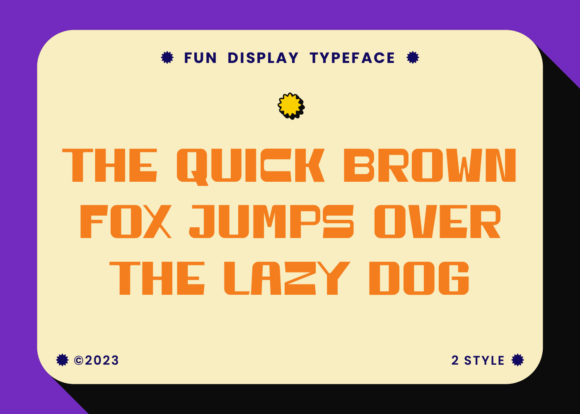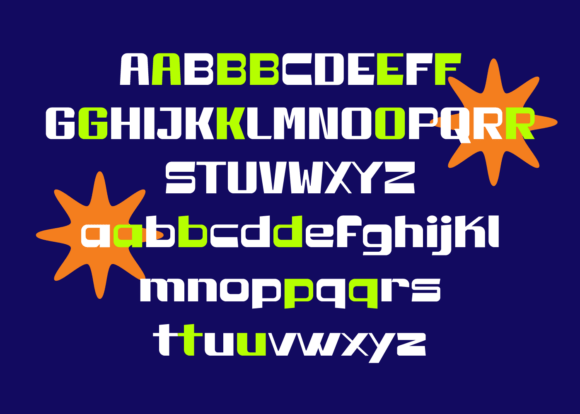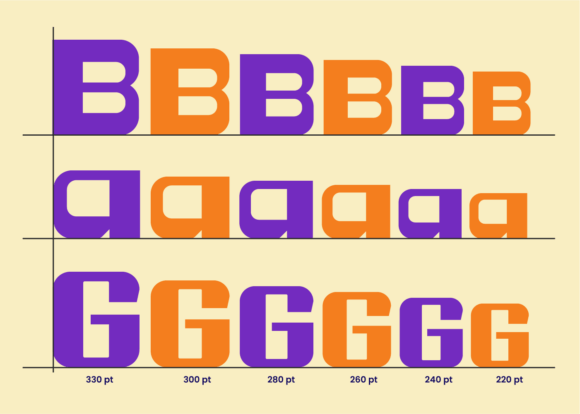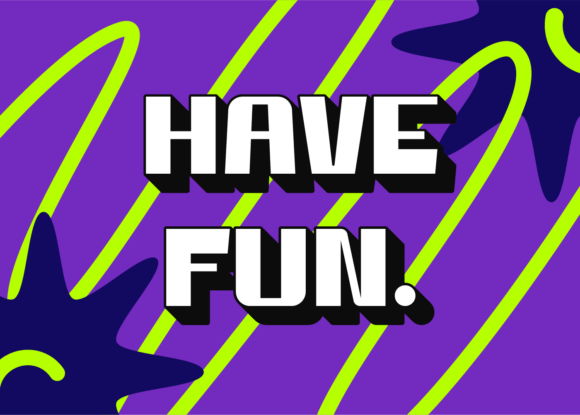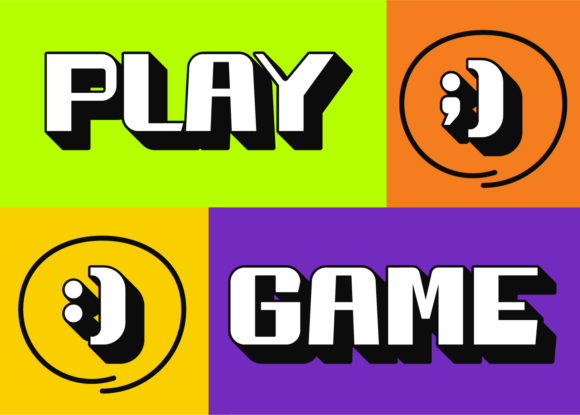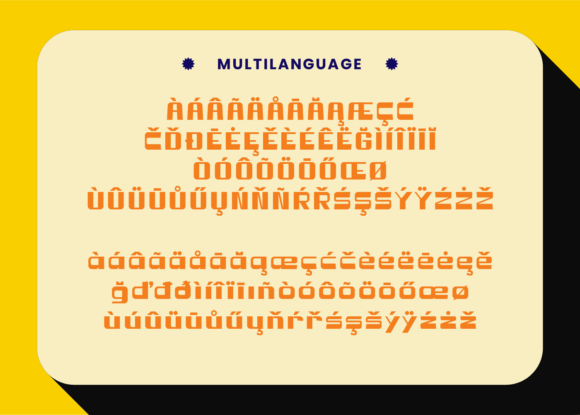
Introducing Bufs Font: The Ultimate Display Typeface for High-Energy Designs
In the world of typography, a font can make or break a design. It’s the foundation upon which the entire visual aesthetic is built. For designers and crafters looking to add a dash of personality and energy to their work, Bufs Font is an exceptional choice. This sharp and expressive display typeface is engineered to bring a unique character to your projects, setting it apart from the ordinary.
Clean Cuts, Geometric Form, and Impactful Presence
Bufs Font boasts clean cuts and a geometric form that gives it a crisp, modern look. Its design is meticulously crafted to ensure that it stands out in any visual environment, making it perfect for projects that demand attention. Whether you’re working on a bold headline, an edgy branding campaign, or a statement piece, Bufs Font’s impactful presence is sure to leave a lasting impression.
Versatility at Its Best: Regular and Italic Styles
One of the key features that set Bufs Font apart is its versatility. The typeface comes in both Regular and Italic styles, providing designers with a range of possibilities. The Regular style is perfect for creating strong, assertive headlines that demand attention, while the Italic style adds a touch of elegance and sophistication, ideal for emphasizing certain words or phrases.
This dual-style offering makes Bufs Font incredibly versatile. It can be used across a variety of design projects, from:
- Headlines and Titles: The bold, assertive nature of Bufs Font makes it perfect for headlines and titles that need to stand out.
- Branding and Logos: The unique character of Bufs Font can help brands establish a distinctive identity that sets them apart from competitors.
- Advertising and Marketing Materials: Bufs Font’s high-energy vibe makes it an excellent choice for advertising and marketing materials that need to grab attention quickly.
- Packaging and Product Design: The clean, geometric lines of Bufs Font make it suitable for packaging and product design, adding a modern touch to any product.
Why Choose Bufs Font?
With so many typefaces available, why choose Bufs Font? Here are a few compelling reasons:
- Unique Character: Bufs Font offers a distinctive look that can help your designs stand out.
- Versatility: With both Regular and Italic styles, Bufs Font can be used across a wide range of projects.
- High-Energy Vibe: Bufs Font is designed to bring energy and excitement to your designs, making it perfect for projects that need to make an impact.
- Ease of Use: Bufs Font is easy to read and works well in both digital and print formats.
Bufs Font is more than just a typeface; it’s a design statement. Its sharp, expressive lines and geometric form make it a versatile and impactful choice for designers and crafters looking to add a unique character to their work. With its Regular and Italic styles, Bufs Font offers a range of possibilities, from strong headlines to elegant text. Whether you’re working on a branding campaign, advertising materials, or a personal project, Bufs Font is sure to bring high energy and excitement to your designs.
In a world where typography plays a crucial role in design, Bufs Font stands out as an exceptional choice for those looking to make a statement. Its clean cuts, geometric form, and impactful presence make it the perfect addition to any design project that demands attention and personality.